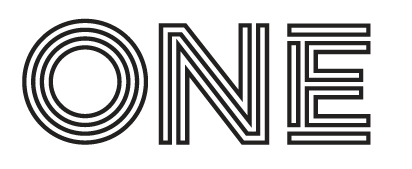
Looking for this font - sort of Neon-esk Style
This is being used in a Presentation for HVAC professionals - I need to find the font to be able to create a French version of the full saying. I have matched all the other fonts used in the theme logo - save for this one.